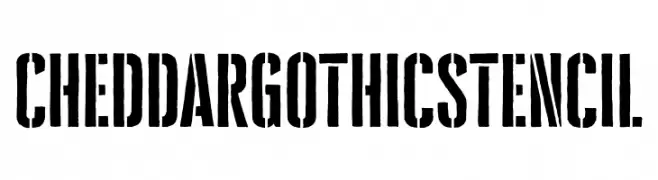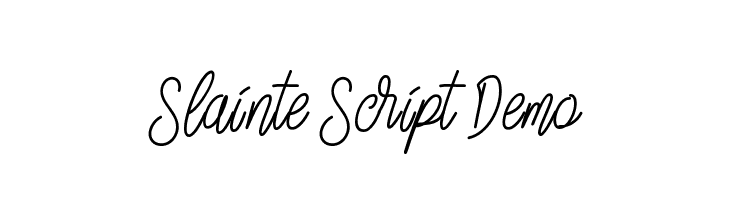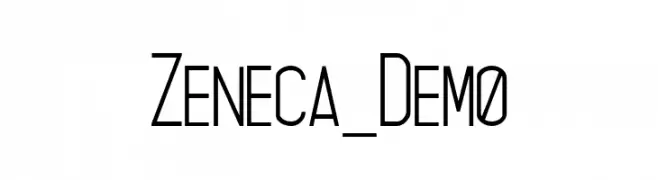
( Antipixel - Julia Martínez Diana - www.antipixel.com.ar/ )
A slender, condensed, and light font with an elegant and minimalistic design.
( Muhammad Akbar - creativemarket.com/sinfa )
A modern, elegant font with high contrast and artistic flair.
( Twicolabs Fontdation - Fahrizal Tawakkal - fontdation.com )
A casual, elegant script font with smooth, connected letters and moderate stroke thickness.
A bold, rounded font with a playful and whimsical style.
An elegant italic font with dynamic slant and moderate contrast.
( Fonts by Almaz Studio )
A playful, rounded font with bold, smooth curves and consistent spacing.
A bold, stencil-style font with an industrial and rugged aesthetic.
A modern, geometric sans-serif font with clean lines and a minimalist style.
A modern sans-serif font with geometric shapes and uniform strokes.
A bold, playful script font with flowing, interconnected characters.